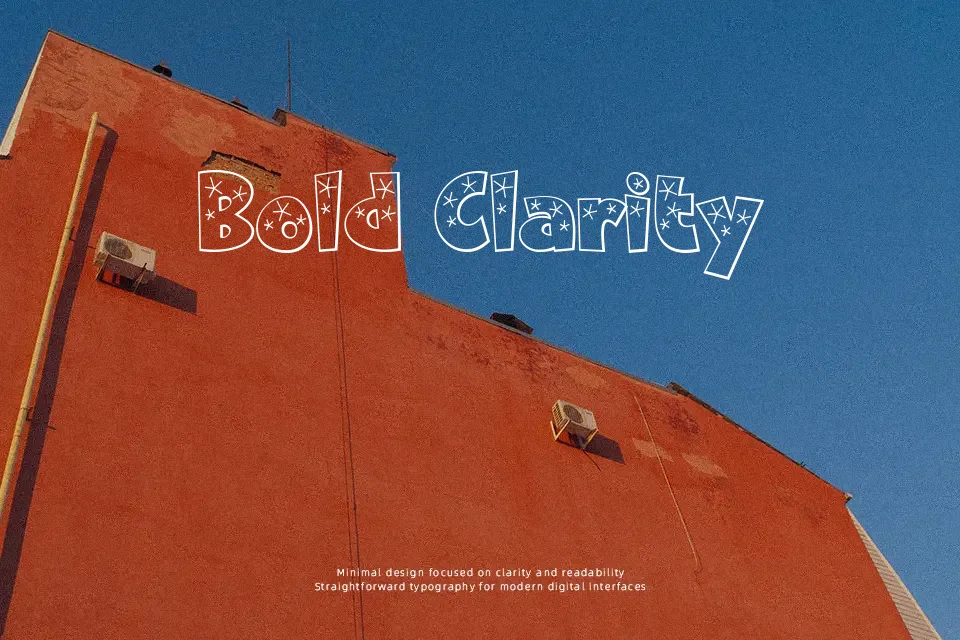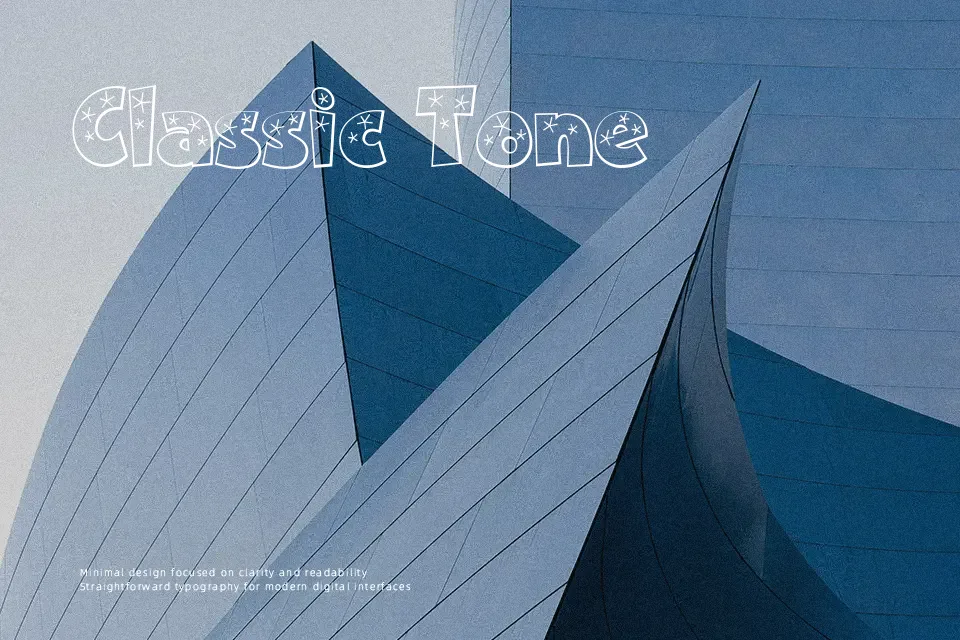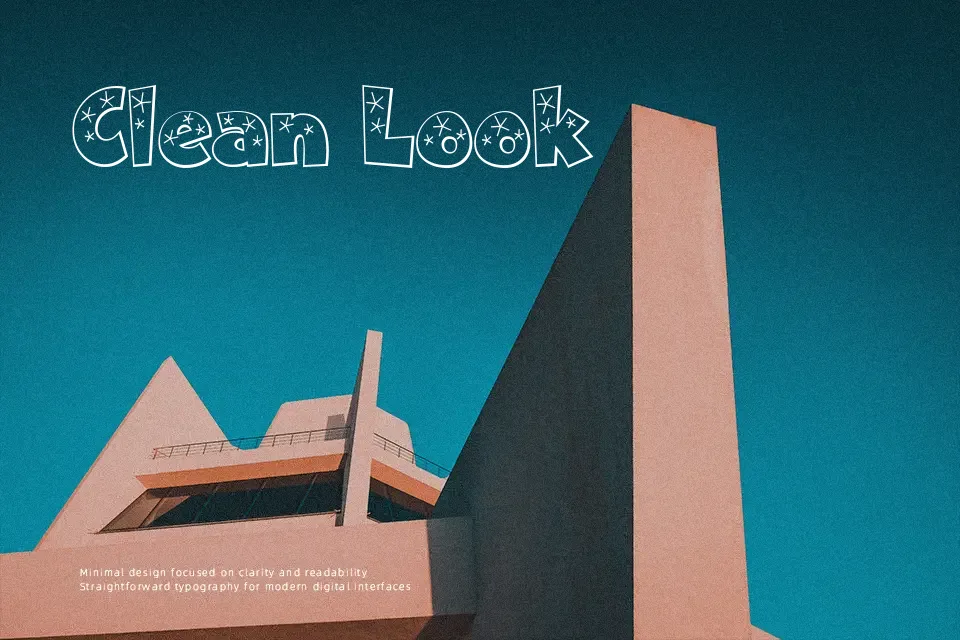
Twinkle Font
Twinkle Font presents an expressive cartoon structure marked by heavy external strokes and hollow glyph centers punctuated by starry silhouettes. The character outlines maintain uniform stroke thickness throughout uppercase and lowercase sets, creating an upbeat, animated rhythm. Balanced character spacing and upright proportions ensure distinct letter boundaries when set at substantial display scales, making the design well suited for amusement park signage, youth apparel graphics, and storybook headlines. However, dense inner ornamentation significantly reduces clarity at smaller typesetting scales, causing intricate star cutouts to blur together. In practical evaluation, the letterforms deliver delightful energy for short headline treatments but become visually overwhelming across multi-line paragraphs or continuous body copy.
children party invitations
storybook cover titles
novelty toy packaging
festival display banners
technical documentation
mobile interface body copy
Perfect for headline, invitation, and kids, with a bold and cartoon style.